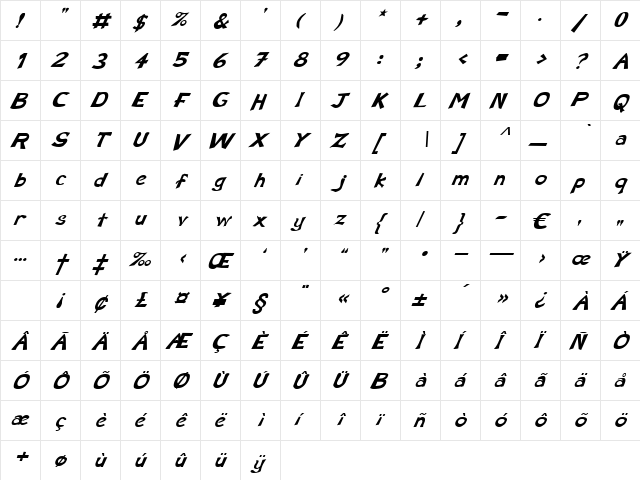
GeniusItalic Regular
Design Context for GeniusItalic Typeface
GeniusItalic takes a measured approach to typography — its balanced proportions and neutral character make it a reliable workhorse for both digital and print work. The slanted form adds forward momentum and visual energy.
Pro Tip: Try GeniusItalic for annotation and caption copy alongside an upright companion — the contrast in angle creates a dynamic but ordered typographic system.